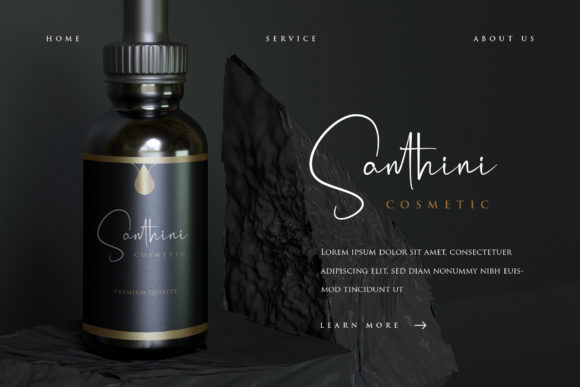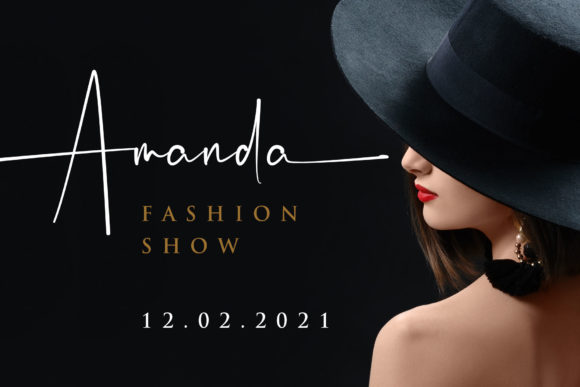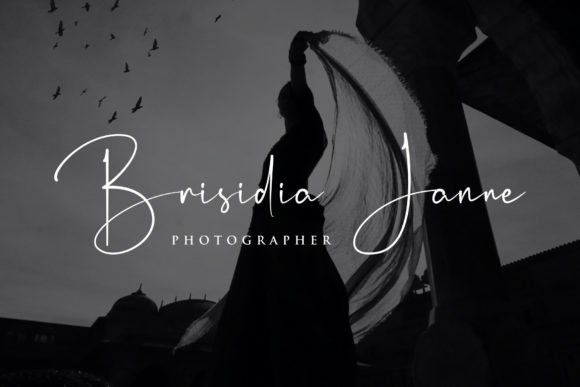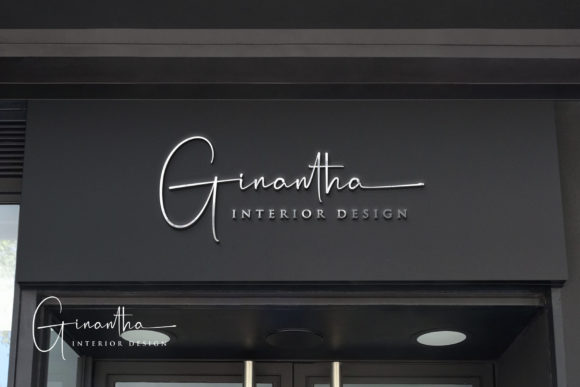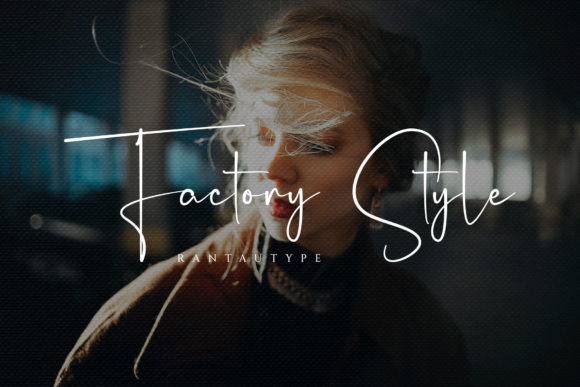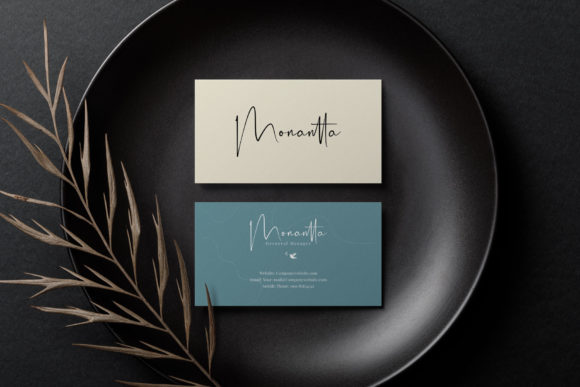
Introduction to Hendrickson Font
Do you remember that moment when you’re working on a creative project and you need the perfect font to give it that extra oomph? Maybe it’s a digital design, a handmade card, or a presentation that needs a unique touch. For designers, finding the right font can be a challenge, but what if I told you about a game-changing design resource that’s about to become your new best friend?
Meet the Hendrickson Font, a high-quality, handwritten font that’s perfect for any creative project. With its incredibly versatile style, you’ll fall in love with its unique charm and use it to create spectacular designs. Whether you’re looking for a free download or just need a design resource that’s easy to work with, the Hendrickson Font is a valuable asset for any designer.
One of the best things about this font is that it’s PUA encoded, which means you can access all of the glyphs and swashes with ease. Plus, it’s perfect for designs with transparent backgrounds, making it a great choice for digital designs and presentations.
Key Features of Hendrickson Font
Honest Review: Hendrickson Font
I recently came across the Hendrickson Font, and I must say it’s a great addition to any design resource collection. This font is perfect for creative projects that require a high-quality, elegant touch.
One of the standout features of Hendrickson Font is its transparent background, making it incredibly versatile for use on any background color or image. The font itself is highly customizable, with a wide range of style options available for download.
- Some users may find the font’s elegant design too minimalist for their taste
Overall, I’m impressed with the Hendrickson Font and would highly recommend it to designers looking for a high-quality, elegant font for their creative projects. Its transparent background and wide range of style options make it a valuable addition to any design resource collection.
Tips for Getting the Most Out of Hendrickson Font
To get the most out of the Hendrickson Font, experiment with different font sizes, colors, and combinations to find the perfect look for your design.
The Hendrickson Font is ideal for use in a variety of creative projects, including logos, brochures, and social media graphics.